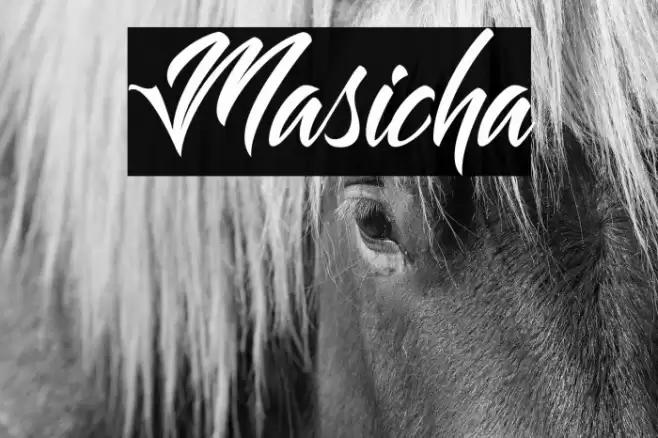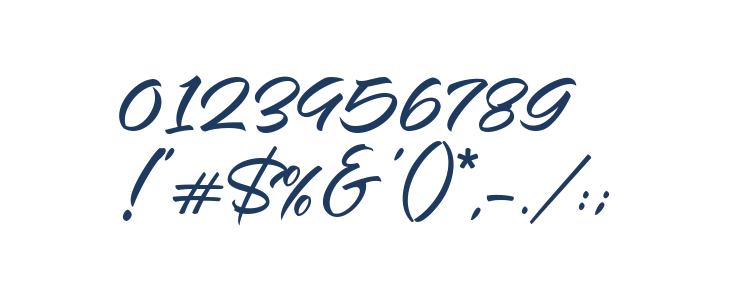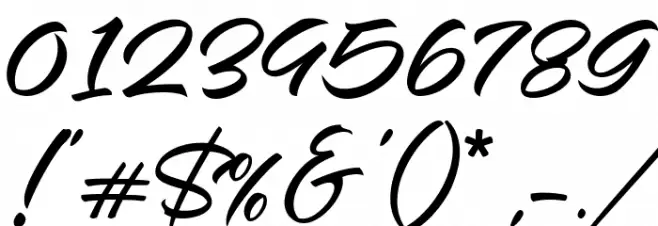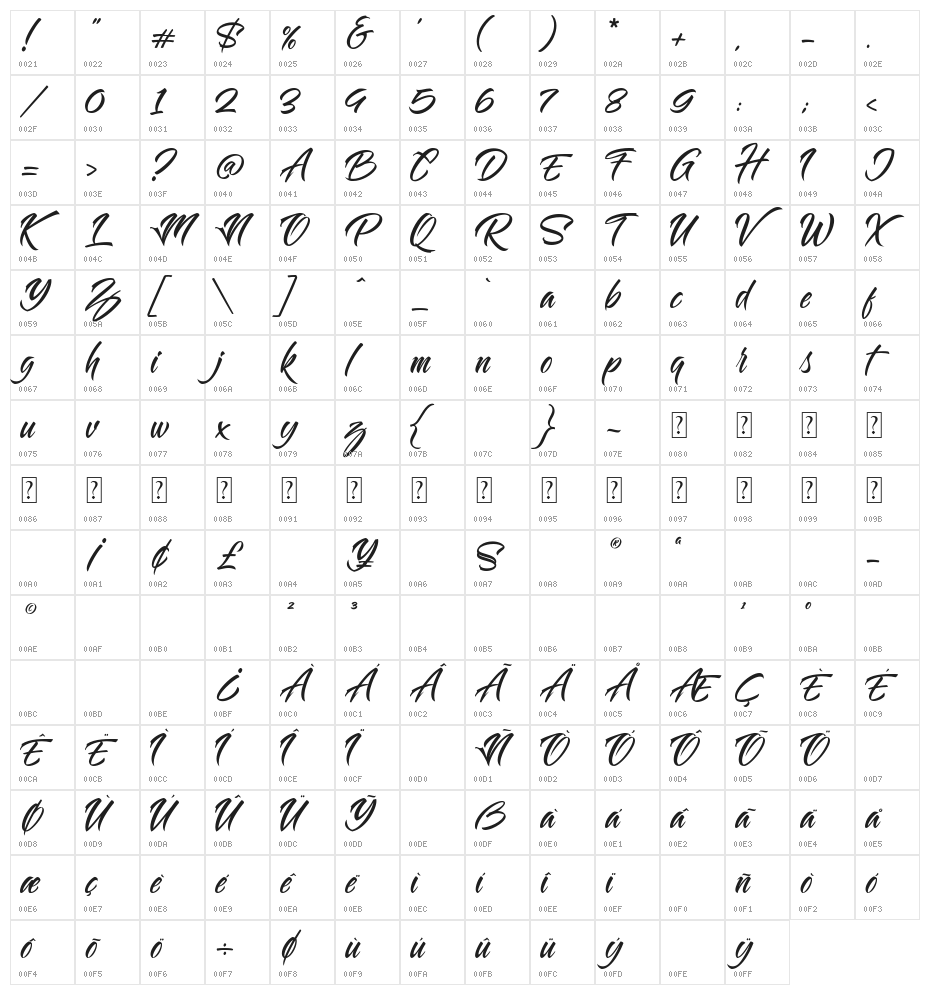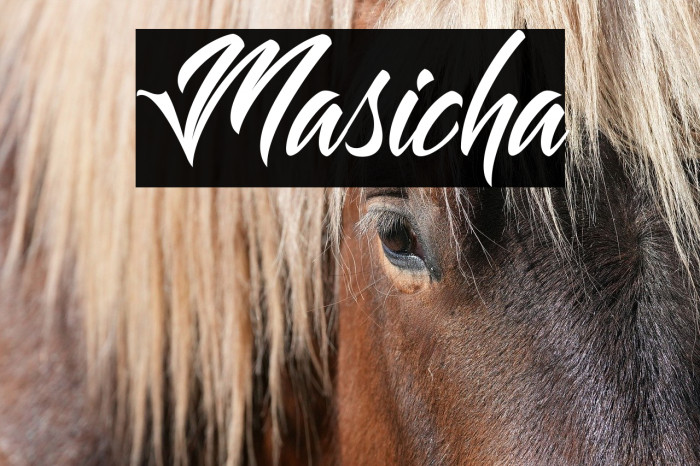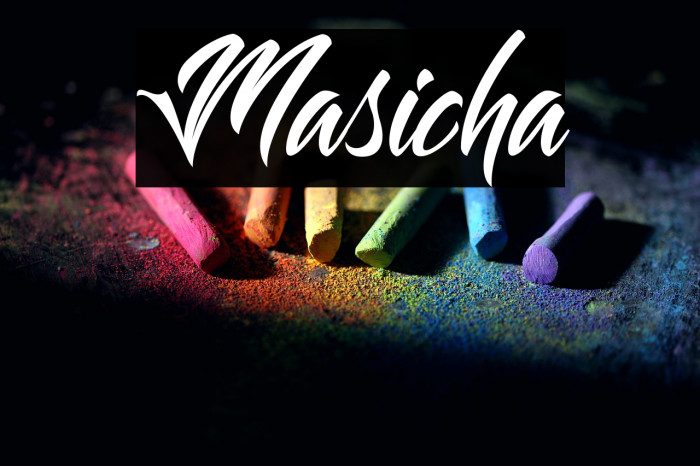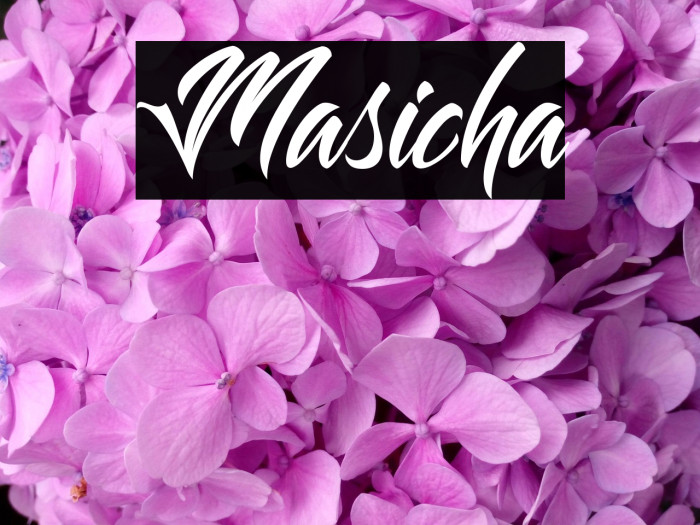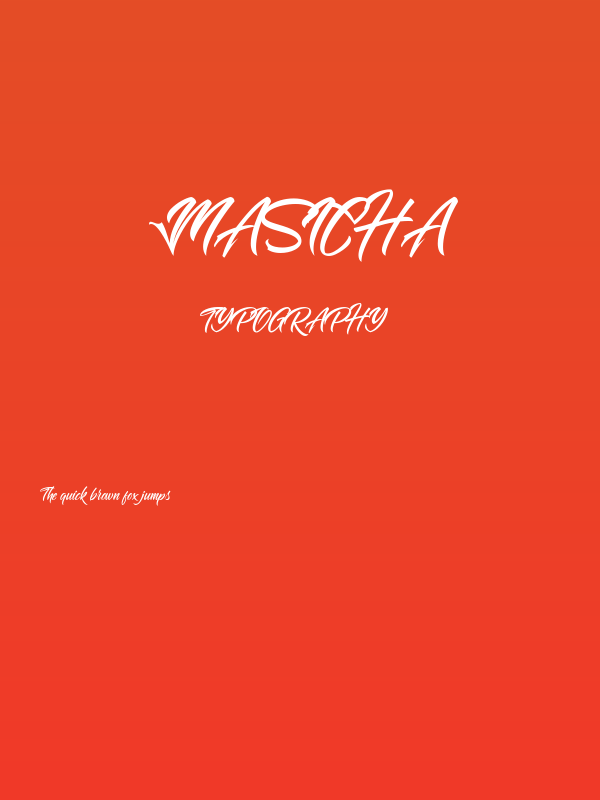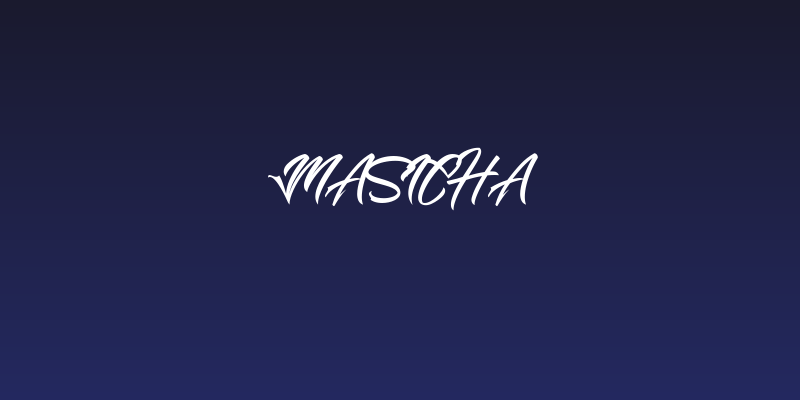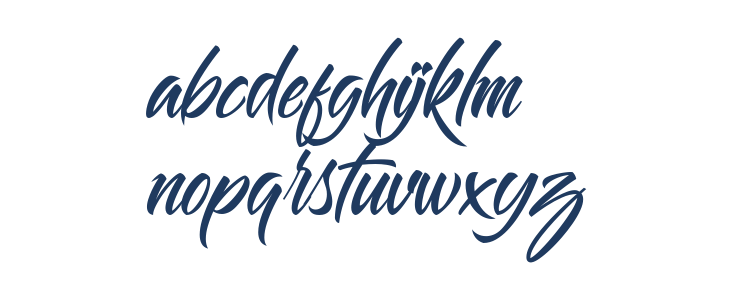
Masicha Font
Masicha Description
This font features a dynamic and energetic script style, characterized by its fluid, cursive strokes and bold presence. The letters are interconnected, creating a sense of movement and flow, which is further emphasized by the varying thickness of the strokes. The uppercase letters are particularly striking, with dramatic flourishes and loops that add a touch of elegance and flair. The lowercase letters maintain a consistent style, complementing the uppercase with their smooth curves and rounded forms. The numerals and special characters are designed to match the overall aesthetic, ensuring a cohesive look across all text elements. This font is ideal for projects that require a personal, handwritten touch, while still maintaining a sense of sophistication and style.
A bold, cursive script font with dynamic strokes and elegant flourishes from Uncategorized fonts.
- Proposed Projects: Ideal for branding, invitations, greeting cards, and logo design.
- Use Case: Logos, Headlines, Invitations